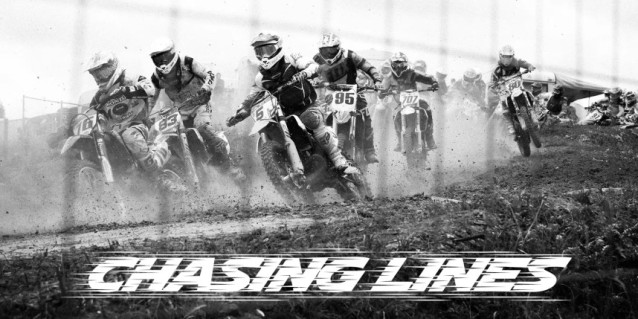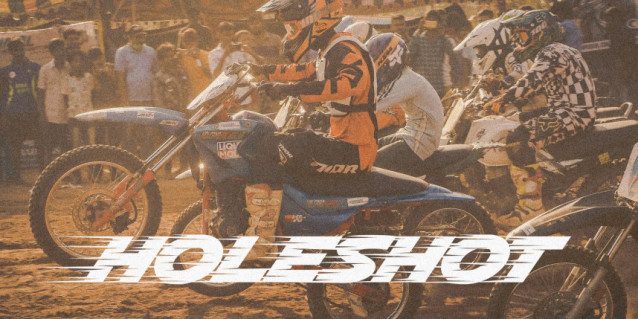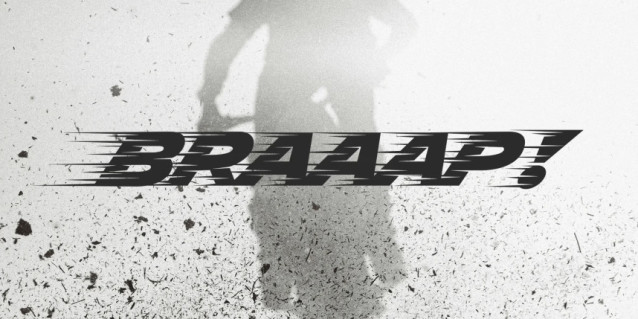
Braaap Font
Braaap Font is a bold, dynamic display typeface designed by Youssef Habchi. It has a strong visual personality that makes it especially suitable for projects related to motorsports, racing, speed, and energetic branding. Its letterforms convey movement and impact, which is why it’s often used in contexts like logos, posters, stickers, and extreme-sport designs.